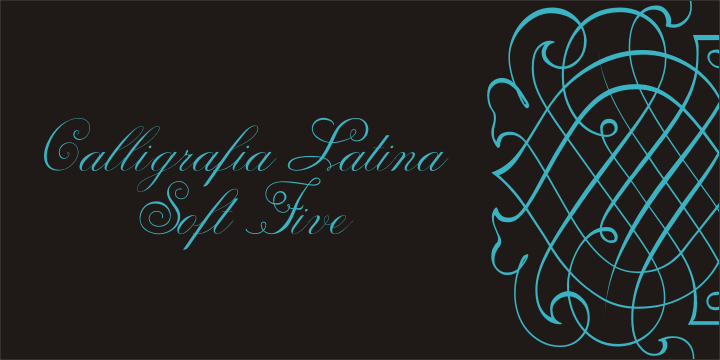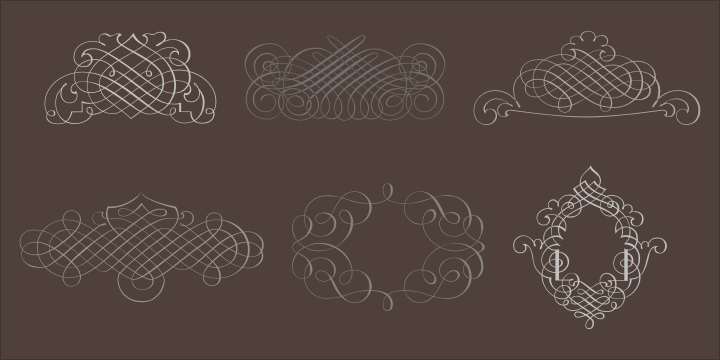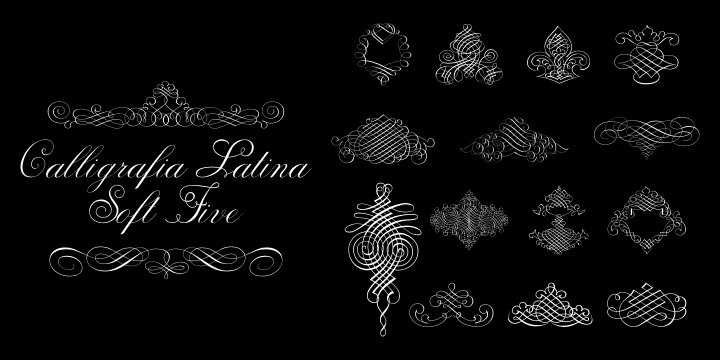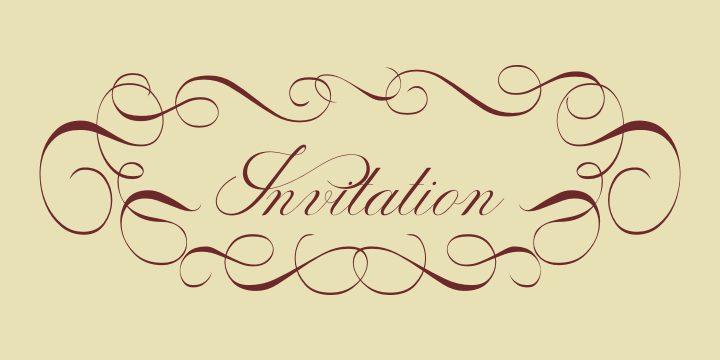
Calligraphia Latina Soft Five is a dingbat font published by Intellecta Design.
One of the most successful ornament fonts is CalligraphiaLatina. It is part of a trend that’s been quite popular lately: messed-up calligraphy.
CalligraphiaLatina is a worldwide best-seller from IntellectaDesign. Besides the original CalligraphiaLatina, its family of fonts (13 different sets) represents a complete solution of intricate fleurons and ornaments for use with various styles of artworks